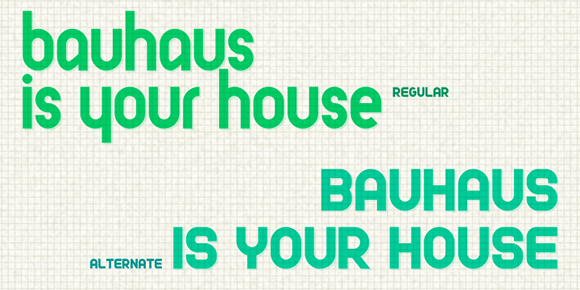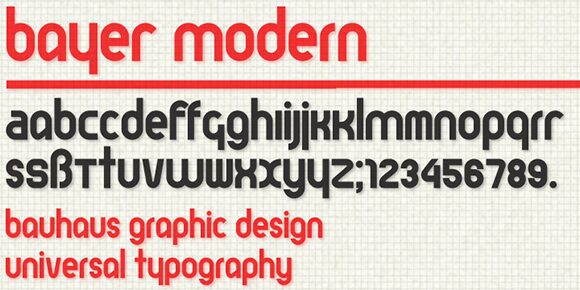
Bayer Modern Font
Bayer Modern is based on Bauhaus artist Herbert Bayer’s universal alphabet designed in 1925. In the spirit of reductive minimalism, Bayer held radical opinions about functionality in typography and design. As master of the Bauhaus’ printing and advertising workshop, he insisted that all official materials be printed exclusively in lowercase and in sans-serif. Bayer believed the use of majuscules and minisclues was anachronistic and unnecessary “the voice does not make capital sounds. Why then should the eye require them?” Among his most functional and popular styles, Bayer’s universal alphabet makes use of a simple geometric grid.
Bayer Modern Font
With the release of Bayer Modern, digital designer Noah Rothschild has expanded and updated Bayer’s original alphabet to accommodate a variety of typographical options. The remarkably thorough Bayer Modern font family includes the original “universal” alphabet, alternate lowercase forms, plus two sets of capitals and alternates, European characters, and a variety of ligatures and symbols. Bayer Modern’s crisp and bold geometric forms are perfect for short headlines, logotypes and monograms.